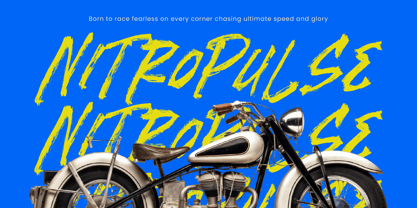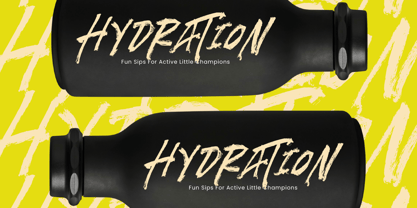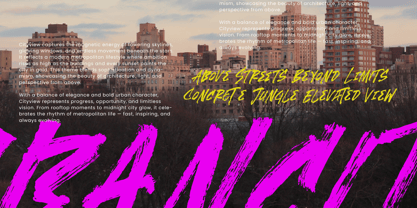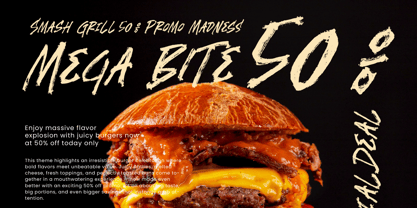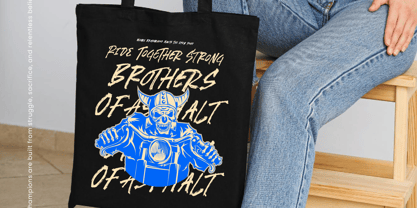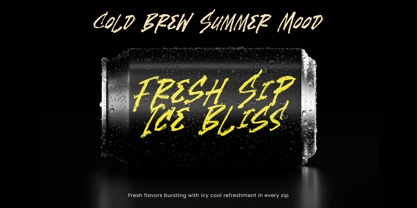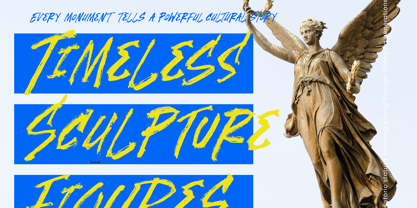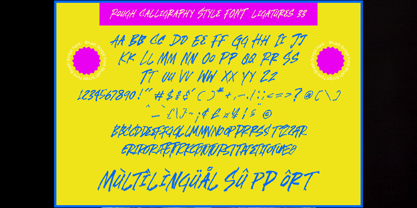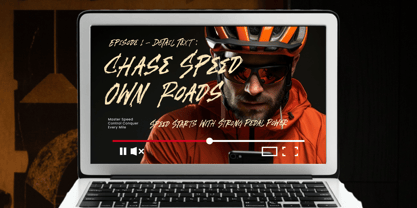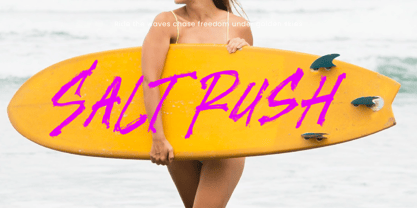
Scarletis
by Stylishtype Studio
The Scarletis Font Family was designed by Heru Utama Putra and published by Stylishtype Studio. Scarletis contains 2 styles and family package options. More about this family
Scarletis is a rough calligraphy style font inspired by expressive street lettering and bold urban energy. Designed with dynamic brush strokes, textured edges, and raw movement, this typeface captures the authentic spirit of graffiti and handcrafted typography. Perfect for posters, apparel designs, album covers, branding projects, social media graphics, and street-style campaigns, Scarletis delivers high-impact visuals with attitude and personality. Featuring 368 glyphs and 33 ligatures, it provides flexible styling options while maintaining its edgy and artistic character. Whether used for powerful headlines or creative display text, Scarletis brings fearless expression and modern urban flair to both print and digital design projects.